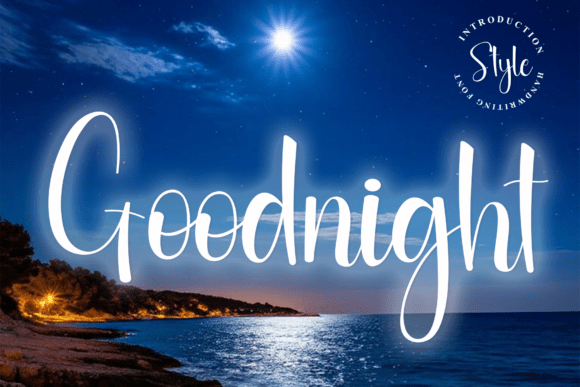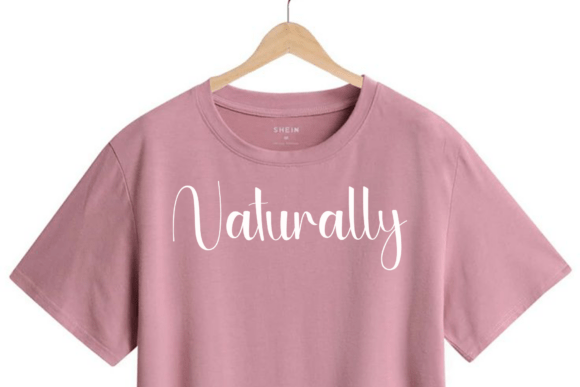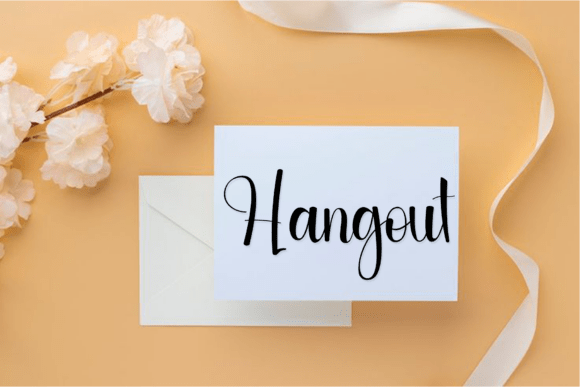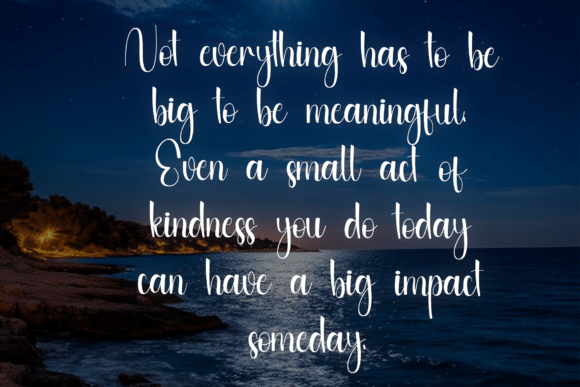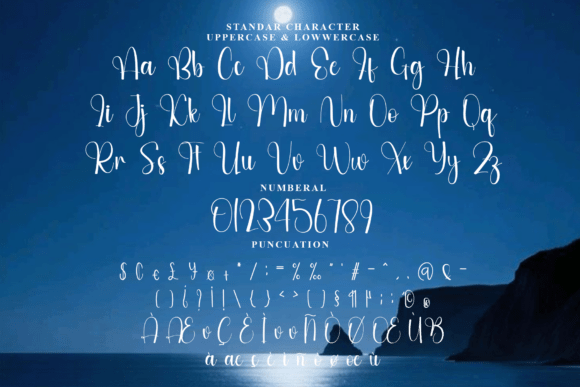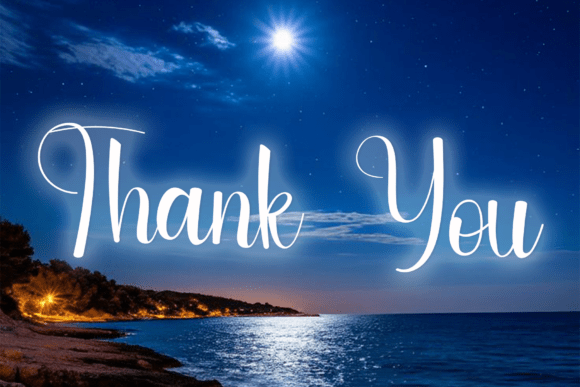
A Creative Moment that Sets the Tone for Autumn
As the crisp autumn air sets in, a feeling of coziness and sophistication takes over. It’s the perfect time to cozy up with a warm cup of apple cider, surrounded by the vibrant hues of fall. For designers, this season is a chance to tap into the unique aesthetic of the autumnal period. And, that’s where Goodnight Font comes in – a sophisticated and rhythmic script font that embodies the essence of autumn.
This modern handwritten collection is a valuable asset for any designer looking to elevate their seasonal marketing campaigns, artisanal food packaging, or boutique event invitations. With its high-contrast strokes, thick downstrokes, and delicate hairline connectors, Goodnight Font is the perfect addition to any design project that requires a touch of elegance and sophistication.
Goodnight Font Key Features
- Unique Character Set: Features a unique set of characters, including swashes, ligatures, and alternate glyphs, to add a touch of elegance to your designs.
Goodnight Font Review
At first glance, Goodnight Font caught my eye with its soft, elegant feel. I was excited to dive in and see what it had to offer. Overall, I’d say it’s a solid choice for any project where you want to create a calming atmosphere. ✨
- Goodnight Font’s gentle curves and rounded edges make it perfect for body text and long-form content.
- The font’s subtle weight variations add depth and visual interest without overwhelming the reader.
- It’s a great choice for digital products, like e-books, websites, and mobile apps, where readability is key.
- ⚠️ While Goodnight Font is great for body text, it may not be the best choice for headlines or titles, as it can get lost in the noise.
- ⚠️ The font’s simplicity can also make it feel a bit bland or generic at times.
- ⚠️ Limited language support is another drawback, which may be a concern for multilingual projects.
Overall, I think Goodnight Font is a great choice for projects where you want to create a soothing, relaxing atmosphere. While it may not be the most exciting or bold font, it’s a solid, dependable option that gets the job done.
Tips for Getting the Most Out of Goodnight Font
Use the Goodnight Font to create a warm and inviting atmosphere in your designs.
Pair it with other fonts to create a unique and eye-catching typography combination.
Experiment with different font sizes and colors to create visual interest and hierarchy in your designs.
The Goodnight Font is perfect for:
Creating a cozy and intimate atmosphere in wedding invitations or event branding.
Designing a warm and welcoming website or app interface.
Creating a unique and eye-catching social media
Alternative Fonts to Goodnight Font for Designers